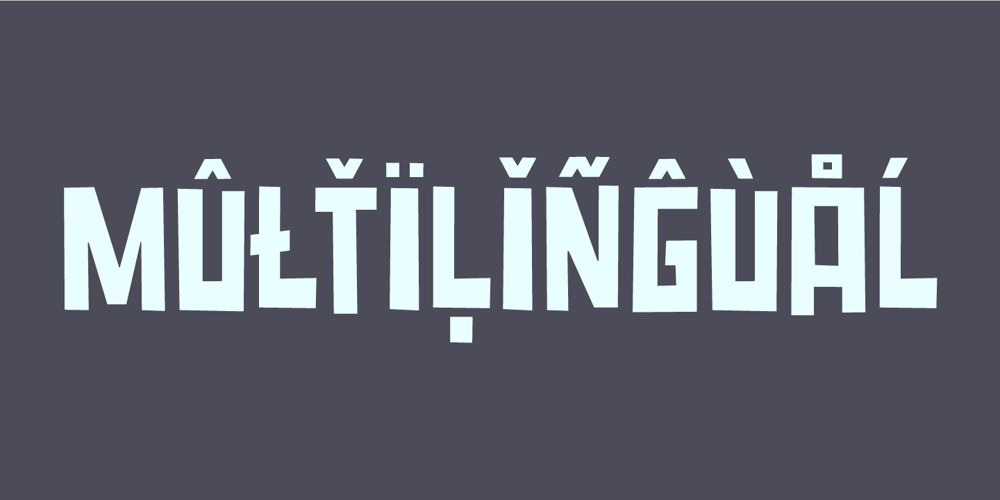
Turbo Modul
Turbo Modul font
Turbo Modul Font Family was designed by Jakob Fischer and published by PizzaDude.dk. Turbo Modul contains 2 styles and family package options. The future is square! Well, at least according to Turbo Modul! Maybe the future is square, but it is also funky – just like Turbo Modul … and its pretty unpredictable! Turbo Modul is loaded with alternative letters with arrows pointing in all directions, all made to pimp your designs! I’ve also added ligatures to substitute double letters, and there’s a slight difference from caps and lowercase. Wow! That’s a lot of different combinations! I tell you what … I take a look at the posters I’ve made, and hopefully it will make you want to try out the font. I had a lot of fun doing the font, and maybe you will have a lot of fun using it! 😉